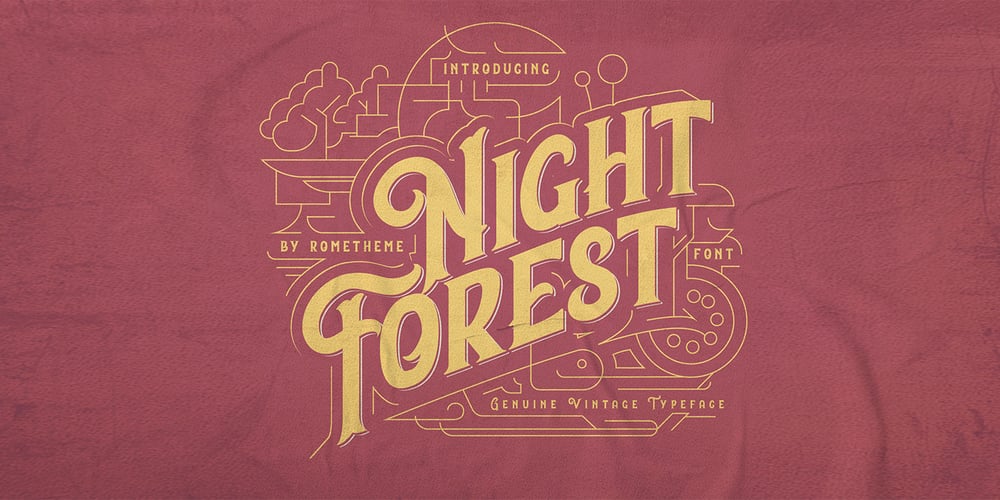
Night Forest
Night Forest font
Night Forest Font Family was designed by Yahdi Kumala and published by Rometheme. Night Forest contains 1 styles and family package options. Introducing Night Forest – Vintage Font Perfect for logotype, labels and packaging, branding, or any vintage-themed projects!Features:- Basic Latin A-Z and a-z- Numbers- Symbols- Stylistic Set- Ligature- PUA Encode- Multilanguage Support